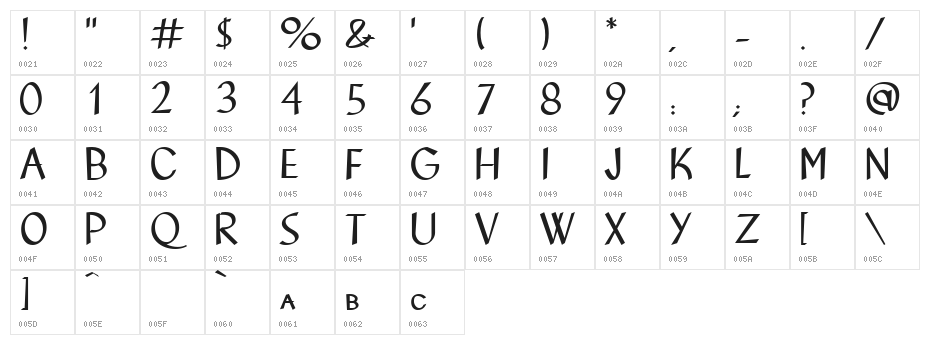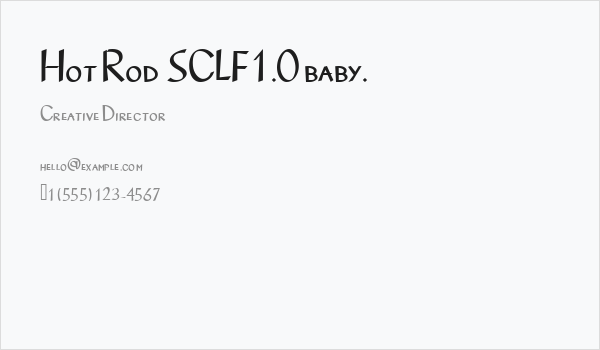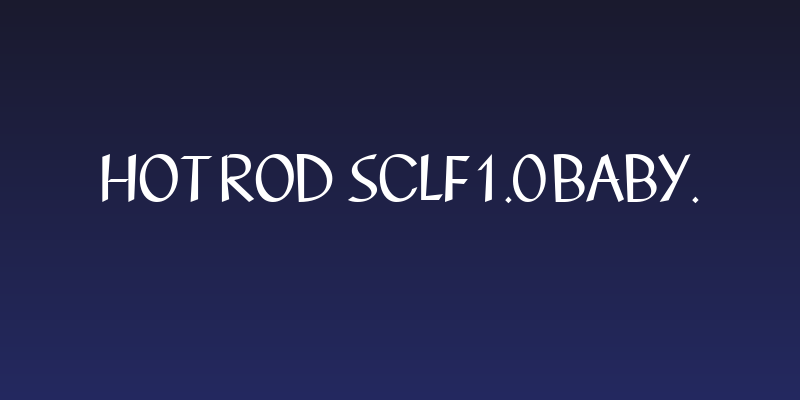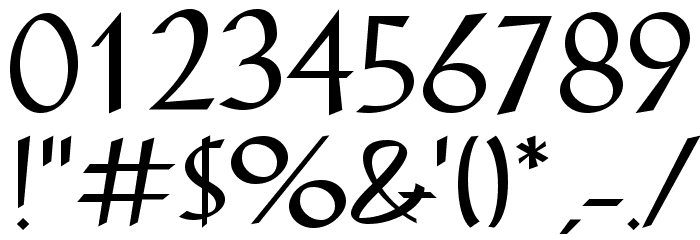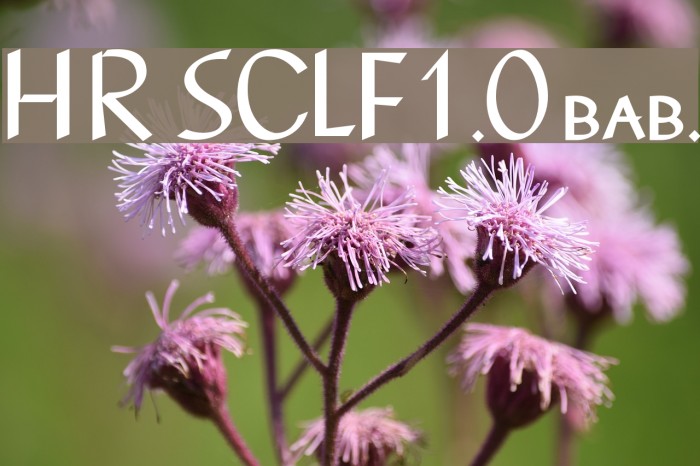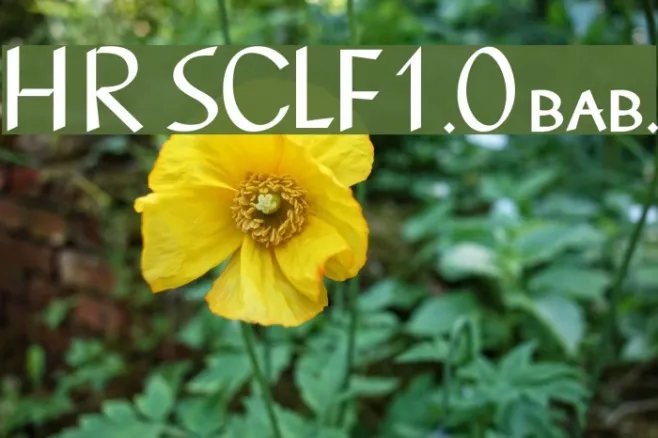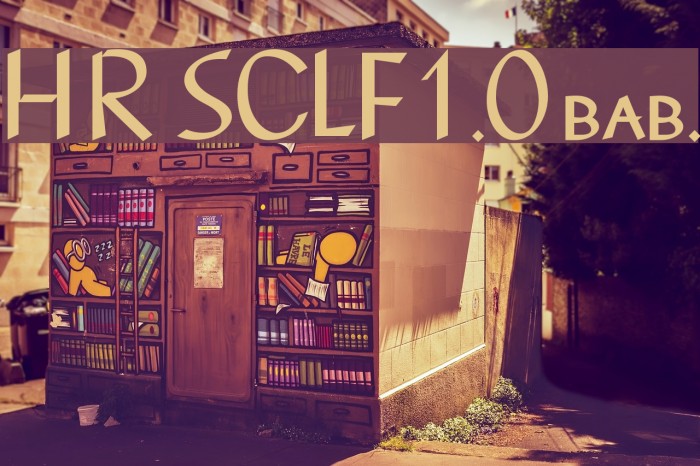
Hot Rod SCLF1.0 baby. Font
Hot Rod SCLF1.0 baby. Description
This font features a bold and dynamic style with sharp, angular lines and a slightly condensed appearance. The uppercase letters are particularly striking, with a unique flair that gives them a sense of motion and energy. The lowercase letters maintain this energetic style, creating a cohesive look across all characters. The numerals are equally bold and maintain the same angular aesthetic, ensuring consistency throughout. Special characters are designed with the same attention to detail, making them stand out while remaining harmonious with the rest of the font. This font's distinct style makes it ideal for projects that require a strong visual impact.
| Proposed Projects | Ideal for branding, posters, and headlines that require a strong visual impact. |